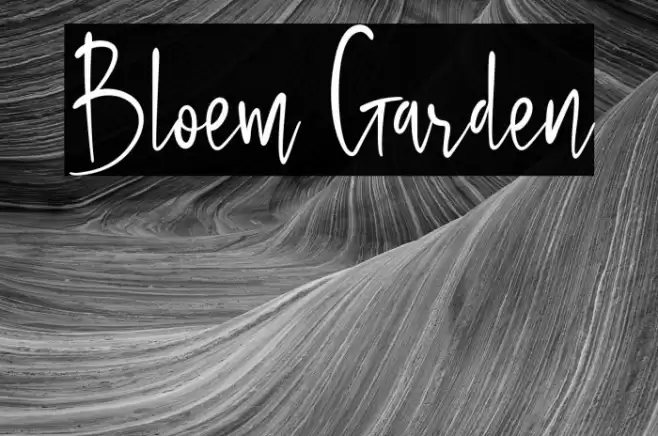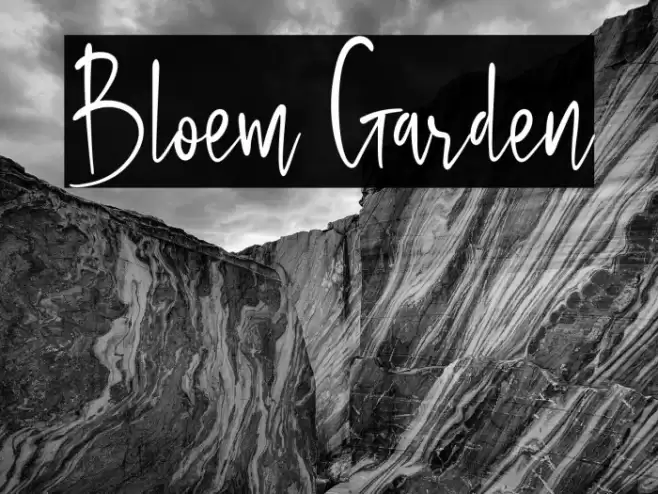
Bloem Garden Font
Bloem Garden Description
This font features a playful and energetic handwritten style, characterized by its flowing, cursive-like strokes. The uppercase letters are tall and slender, with a slight slant that adds a dynamic feel. The lowercase letters maintain a consistent flow, with loops and curves that enhance its handwritten appeal. The overall design is informal yet stylish, making it suitable for creative and artistic projects. The font's unique personality is evident in its varied line thickness, which adds a touch of spontaneity and charm.
A playful, handwritten font with dynamic, cursive-like strokes from Regular fonts.
- Proposed Projects: Ideal for greeting cards, invitations, personal branding, and creative projects that require a personal touch.
- Use Case: Logos, Headlines, Creative projects